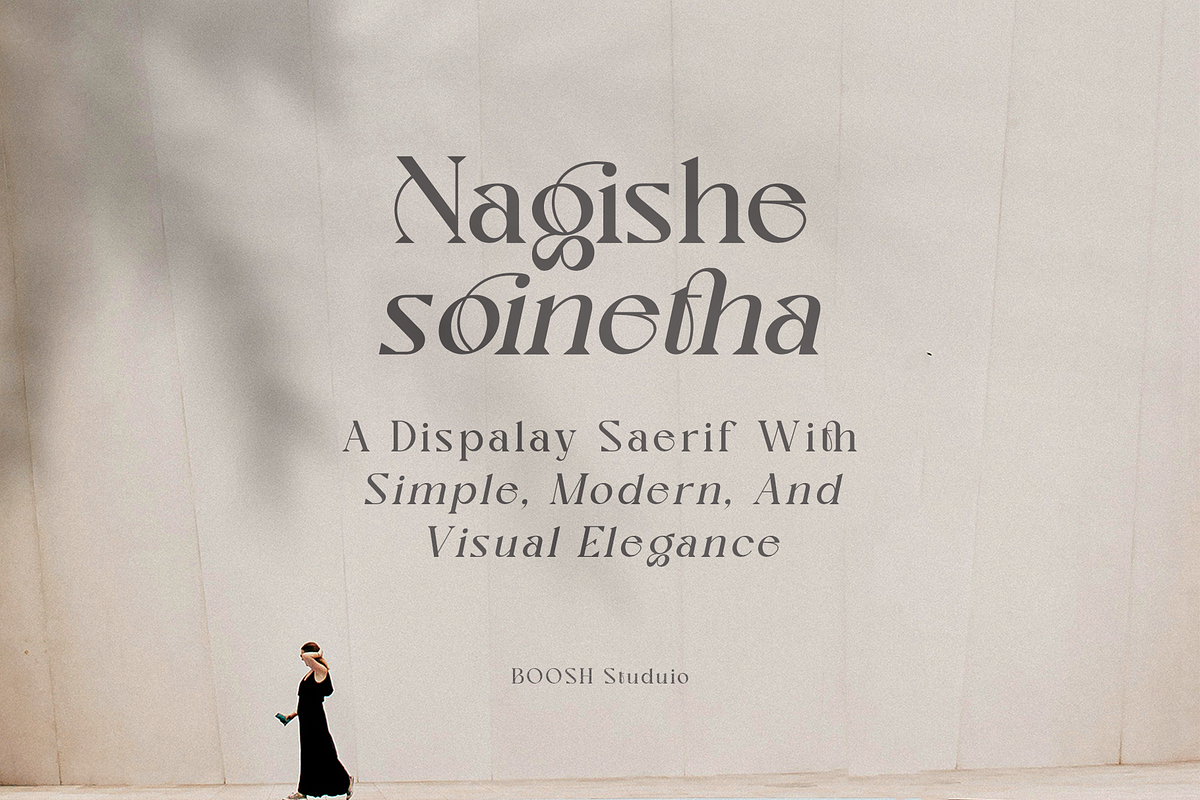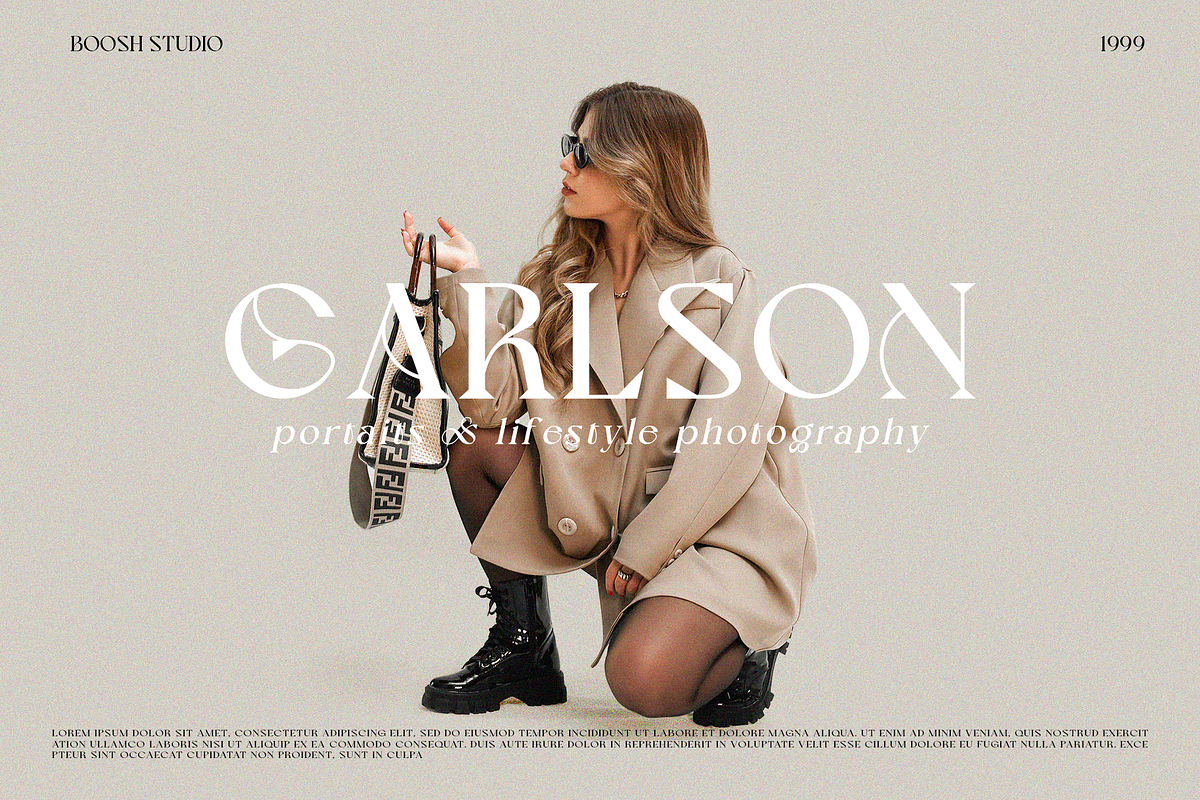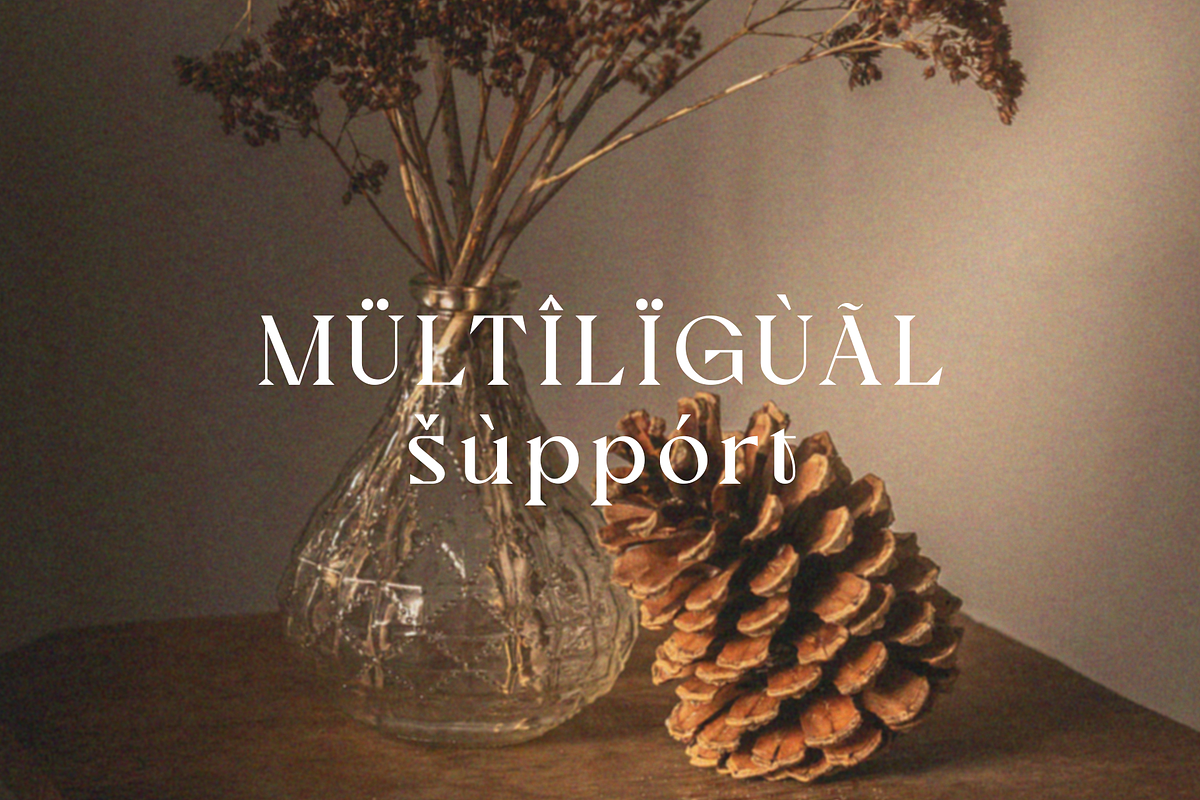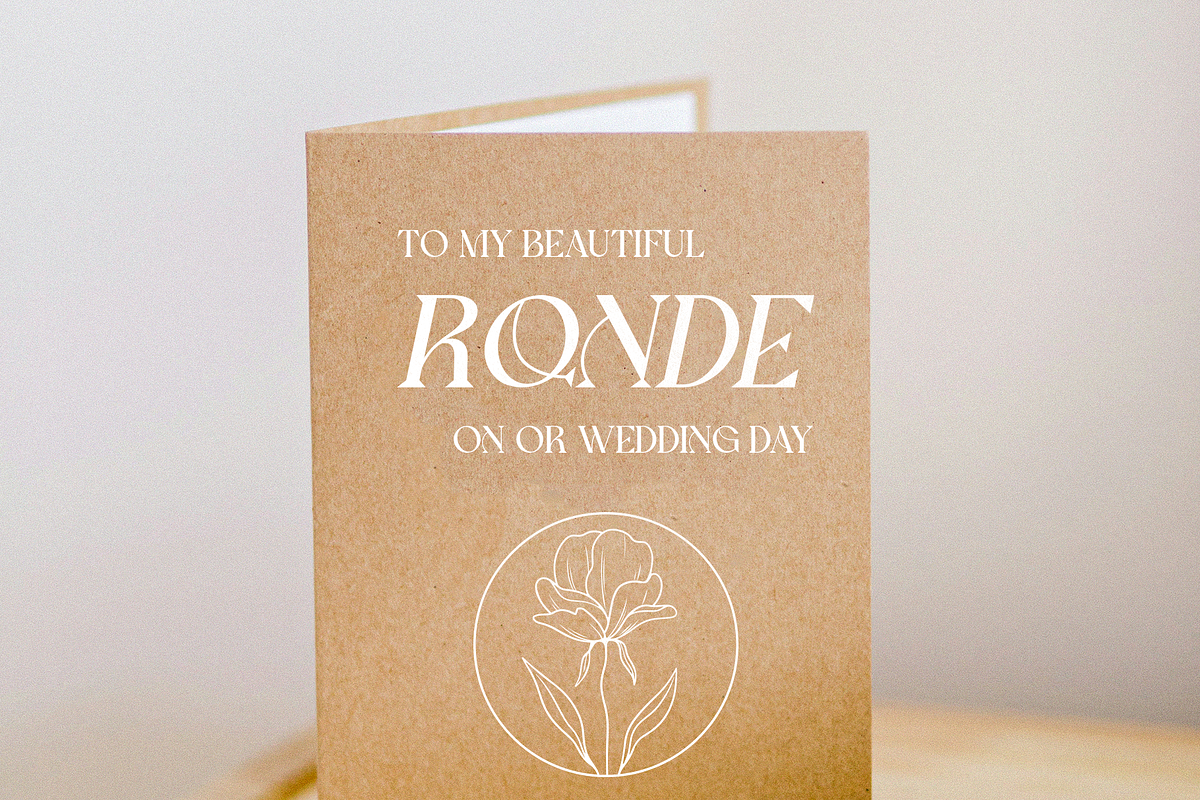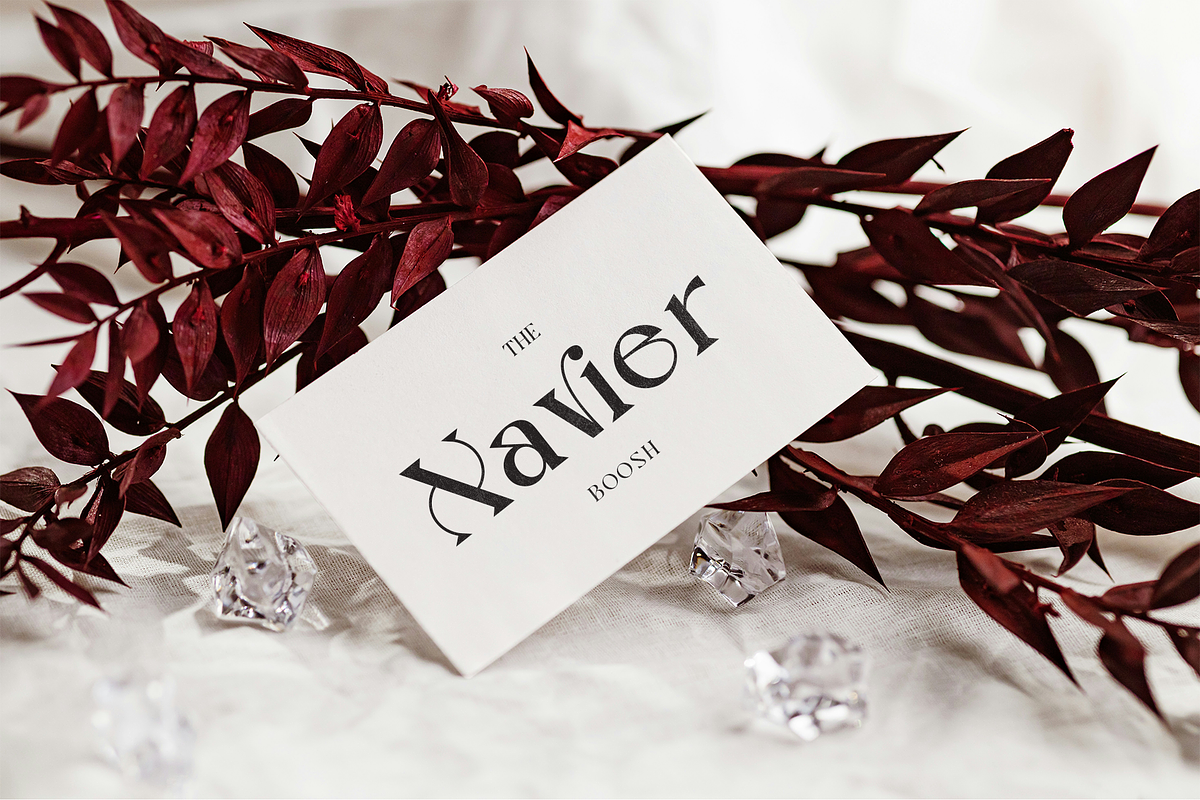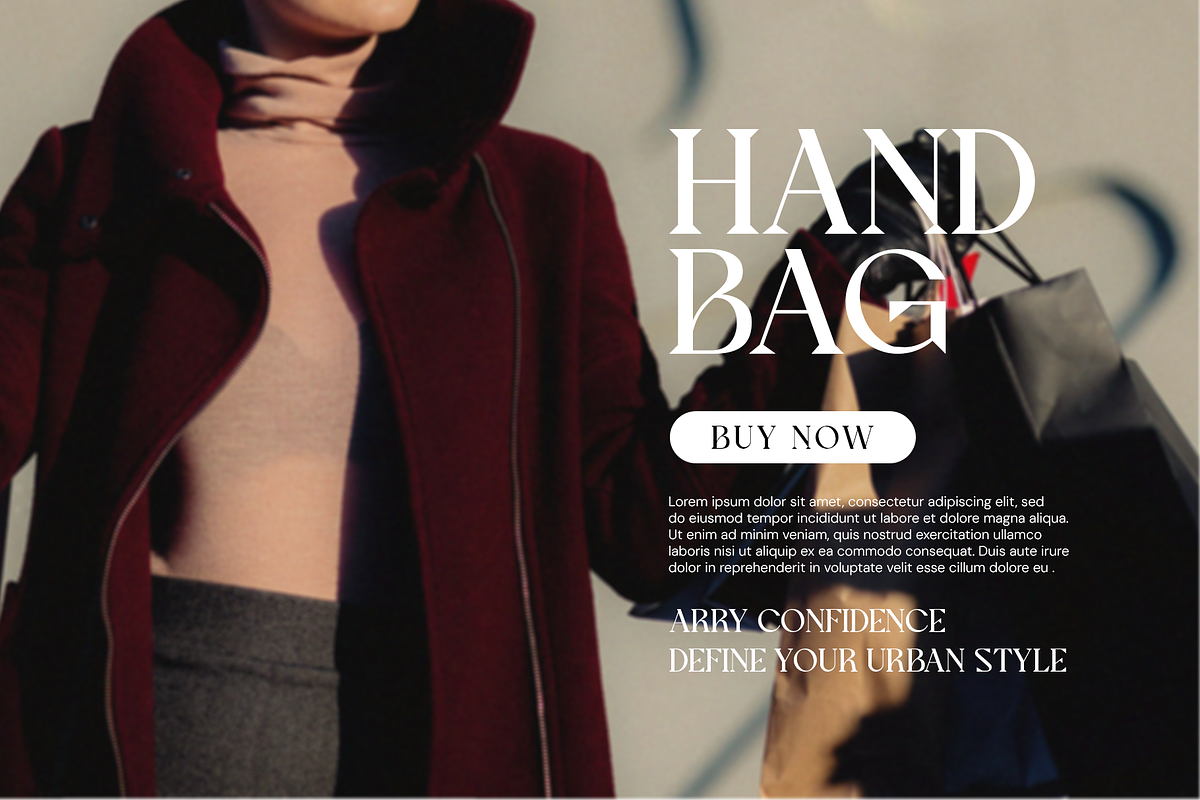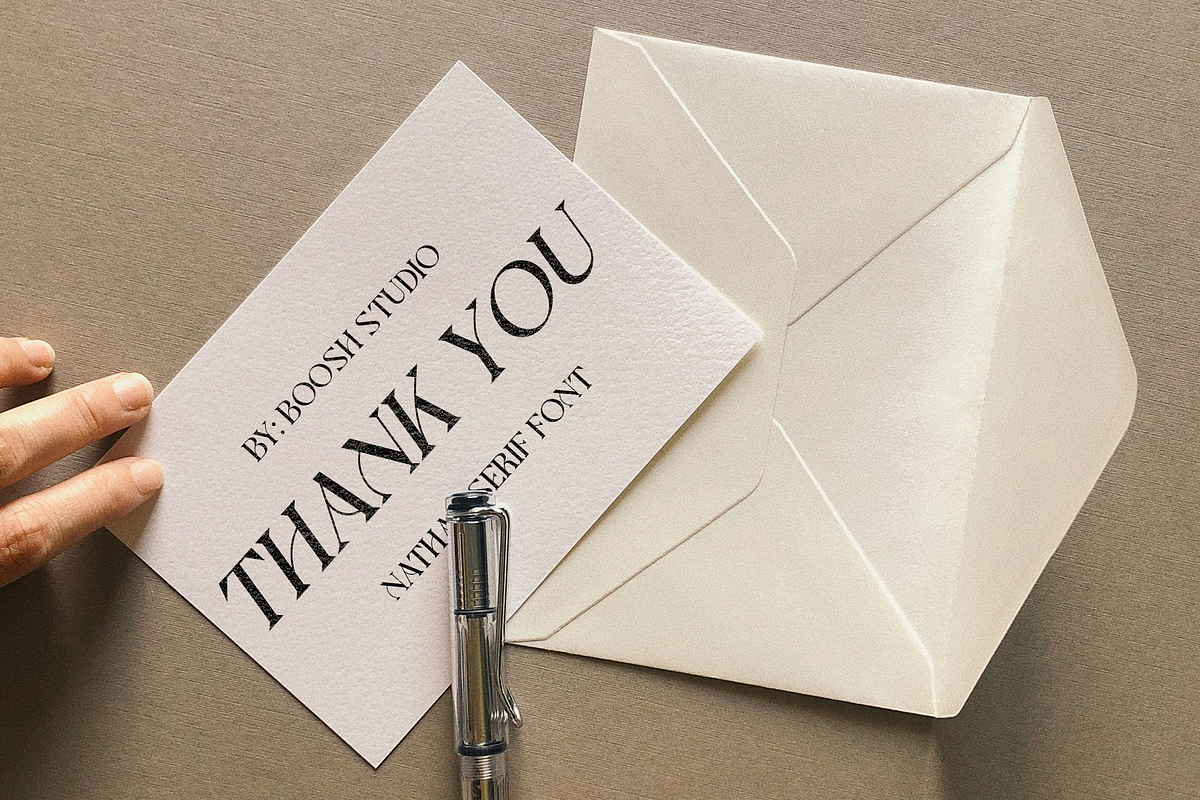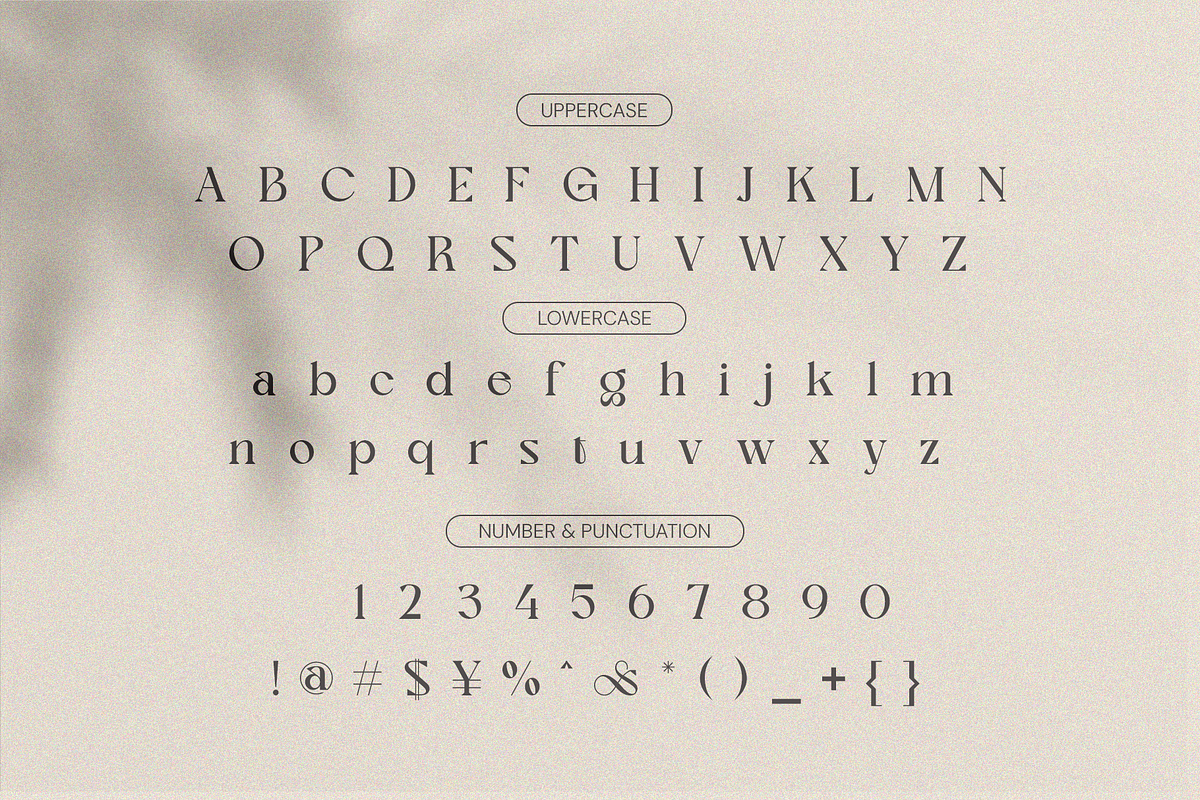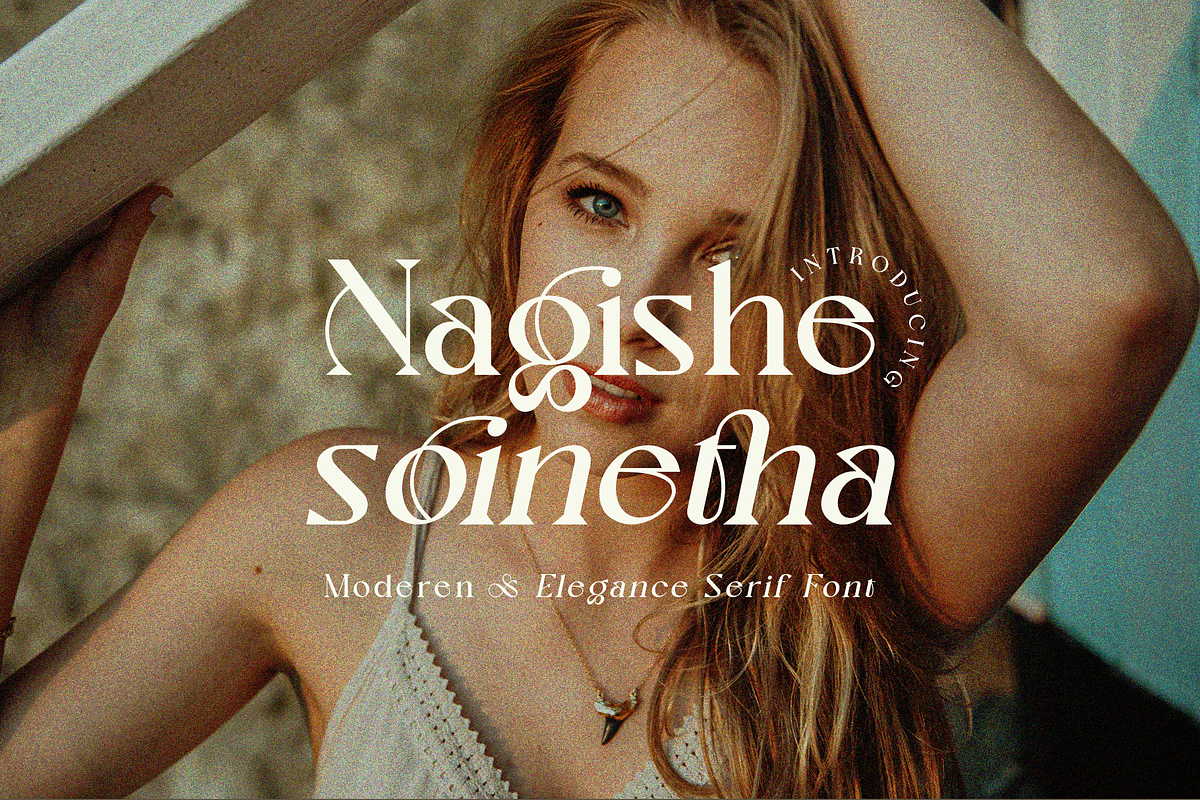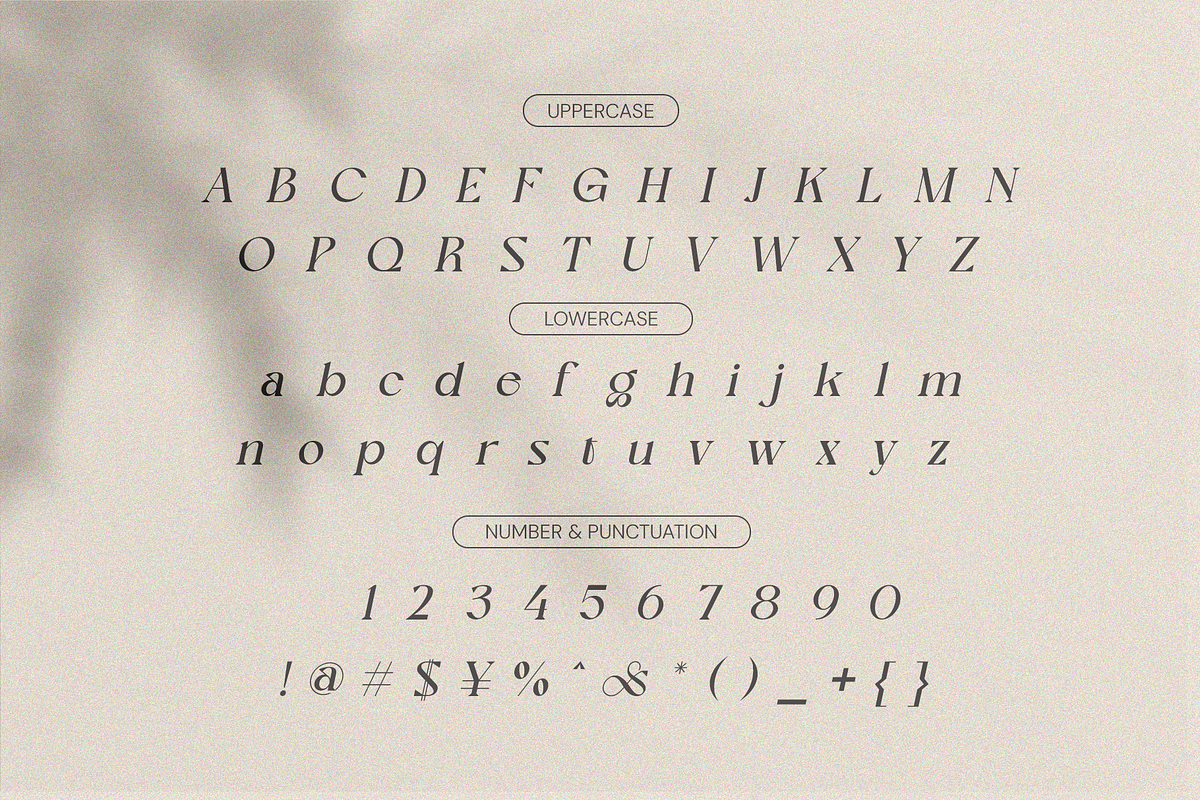
Nagishe Soinetha Moderen & Elegance
Nagishe Soinetha Serif is a balanced, smooth, elegant and stylish serif font. He has a beautiful character. It fits perfectly with invitation card designs, company logos, movie titles, movie names, business cards, book titles, brand names and various other designs.